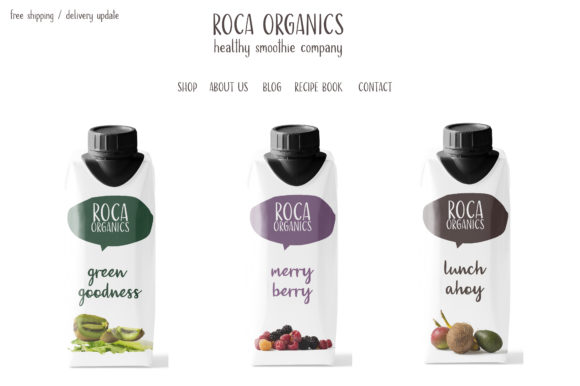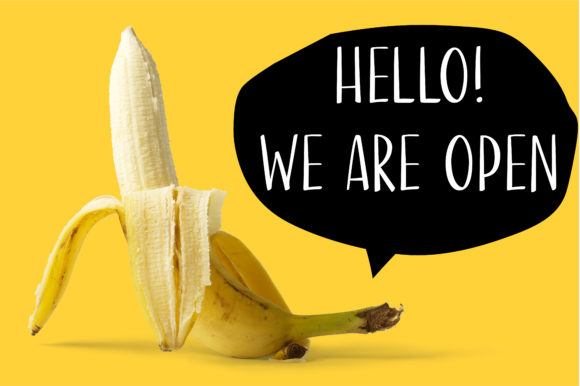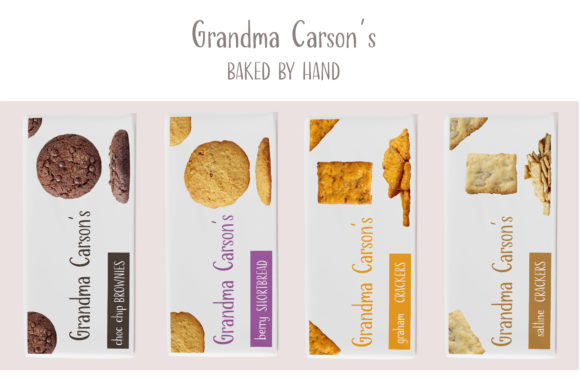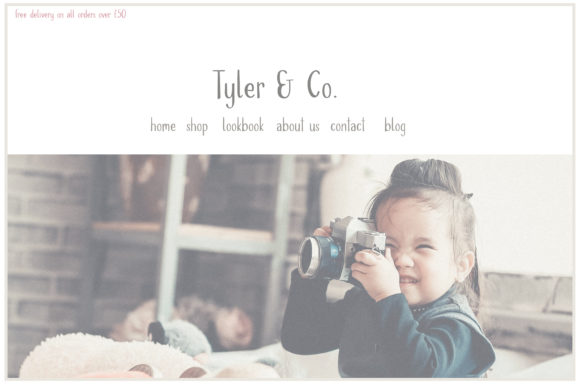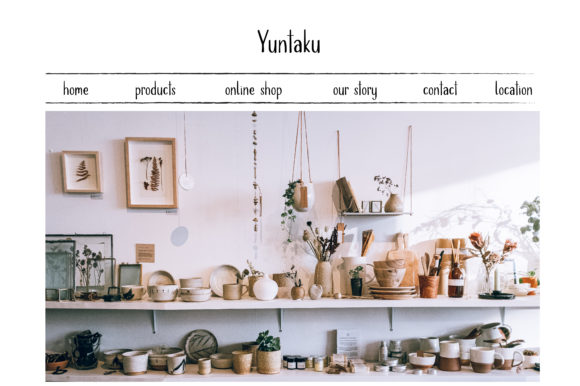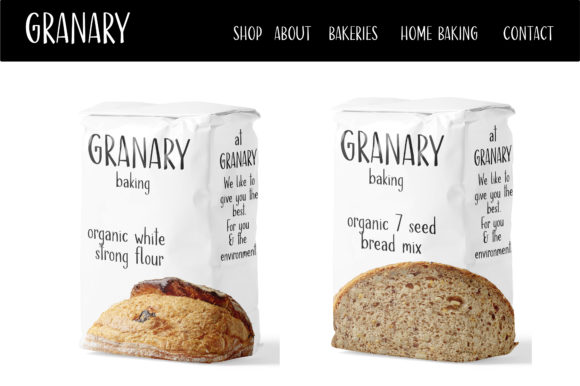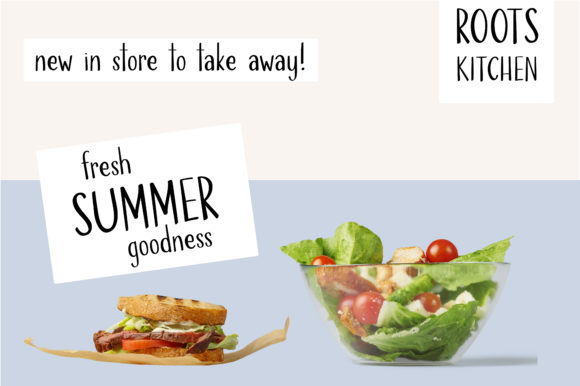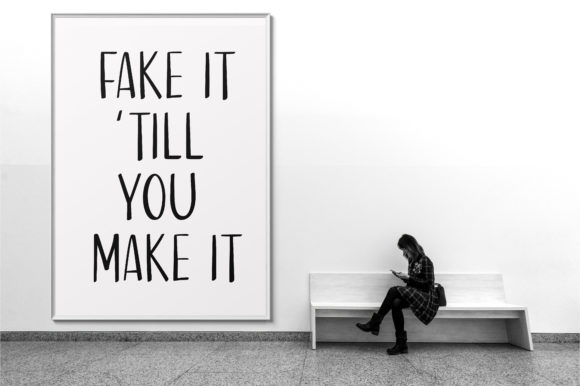
Little Gloster Font
About Little Gloster Font
Little Gloster embodies fun, quirkiness, and authenticity. This enchanting handwritten font will turn any creative idea into a true standout. Its organic feel is perfect for a variety of projects.